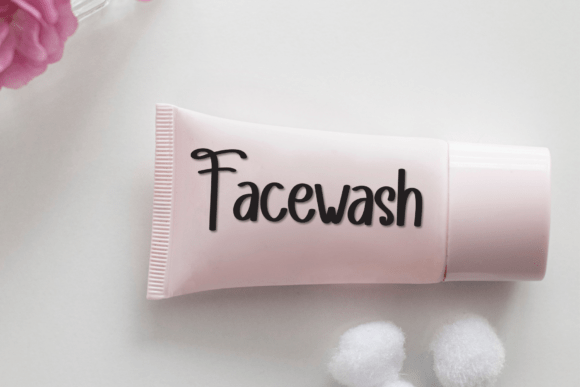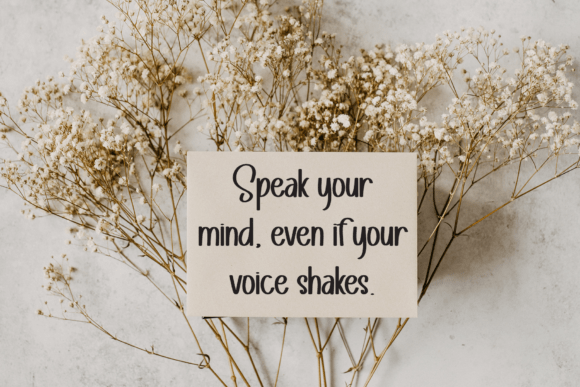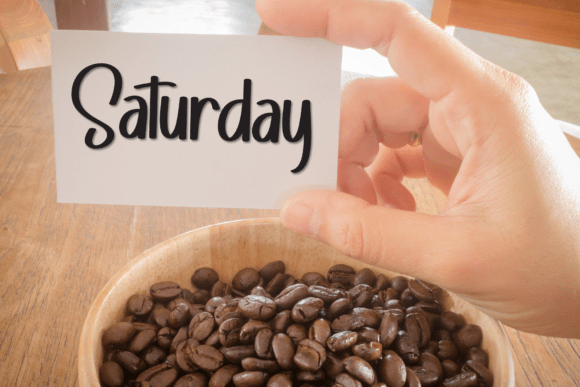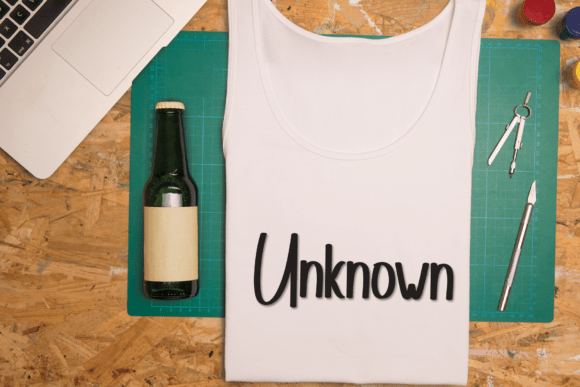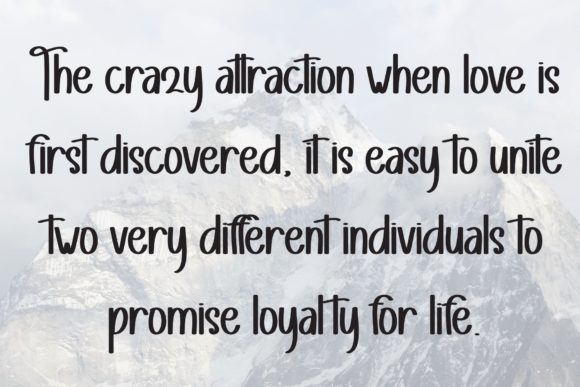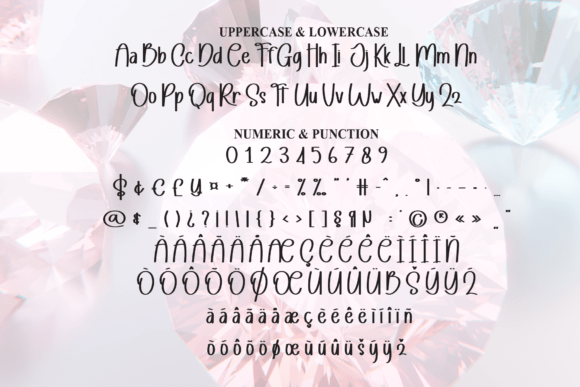
Introducing Gemstone Font: The Sweet and Friendly Handwritten Display Font
Are you tired of using the same old fonts in your design projects? Do you want to add a touch of personality and whimsy to your creations? Look no further than Gemstone Font, the charmingly personable handwritten display font that’s sure to bring a smile to your audience’s face. Infused with undeniable cuteness, Gemstone Font is pure fun brought to life in type.
The Perfect Blend of Fun and Function
Gemstone Font is more than just a pretty face – it’s a versatile and functional font that’s perfect for a wide range of design projects. Whether you’re crafting heartwarming wedding invitations, memorable cards, or any other design project that needs a playful infusion, Gemstone Font is the perfect choice. Its unique blend of fun and function makes it an ideal font for designers and crafters who want to create something truly special.
A Font that Embodies Sweetness and Friendliness
Gemstone Font is a font that’s all about personality. Its sweet and friendly strokes are sure to capture the hearts of your audience, making it perfect for projects that require a personal touch. The font’s charming and approachable feel makes it ideal for designs that need to convey a sense of warmth and approachability.
Broadening Your Creative Horizons
With Gemstone Font, the creative possibilities are endless. Whether you’re a designer, crafter, or DIY enthusiast, this font is sure to inspire you to create something truly unique and special. From wedding invitations and birthday cards to social media graphics and branding materials, Gemstone Font is the perfect tool to help you bring your creative vision to life.
Immersing Your Audience in an Enchanting Typography Experience
Gemstone Font is more than just a font – it’s an experience. Its enchanting typography is sure to captivate your audience, drawing them in and making them feel like they’re part of something special. By using Gemstone Font in your design projects, you’ll be able to create an immersive experience that expertly marries fun and function.
Gemstone Font is a versatile font that’s perfect for a wide range of design projects, including:
- Birthday cards and party decorations
- Social media graphics and branding materials
- DIY crafts and scrapbooking
Why Choose Gemstone Font?
So why choose Gemstone Font over other fonts? Here are just a few reasons why Gemstone Font stands out:
- Unique and charming personality
- Sweet and friendly strokes
- Perfect blend of fun and function
- Versatile and functional
- Easy to read and use
Get Ready to Fall in Love with Gemstone Font
If you’re looking for a font that’s sure to capture the hearts of your audience, look no further than Gemstone Font. With its charming personality, sweet and friendly strokes, and perfect blend of fun and function, Gemstone Font is the perfect choice for designers and crafters who want to create something truly special. So why wait? Fall in love with Gemstone Font today and start creating designs that are as unique and special as you are.
In conclusion, Gemstone Font is a one-of-a-kind handwritten display font that’s sure to bring a touch of personality and whimsy to your design projects. With its sweet and friendly strokes, perfect blend of fun and function, and versatility, Gemstone Font is the perfect choice for designers and crafters who want to create something truly special. So why wait? Try Gemstone Font today and see the difference it can make in your designs.